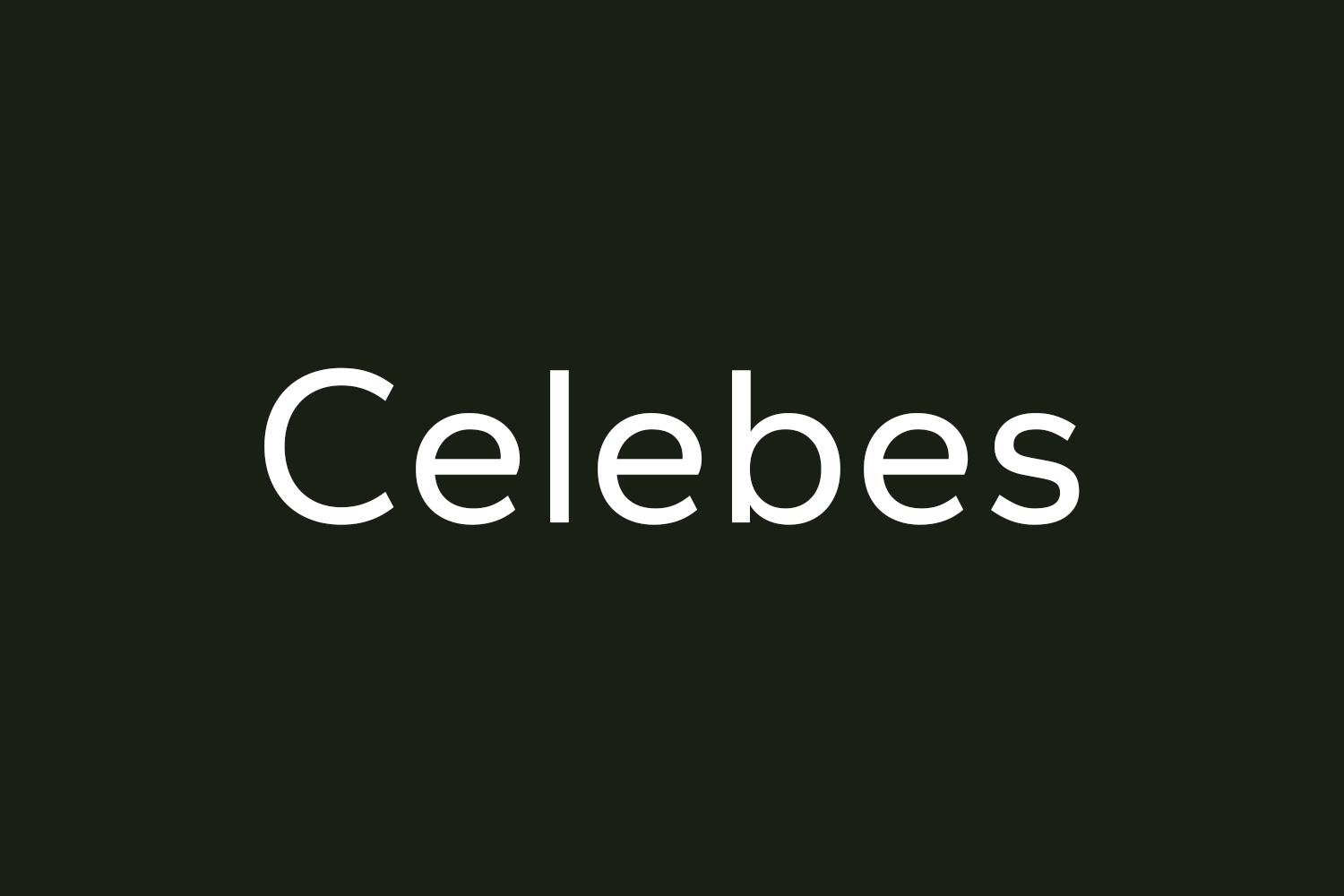
Celebes
Celebes Free Font Family, created by Anugrah Pasau for Lafontype, is a modern geometric sans serif font family suitable for various design projects. This font family offers a unique and versatile design that is perfect for both headlines and body text. With its minimalist and contemporary appearance, Celebes Free Font Family can be used for a variety of design projects, such as branding, logos, packaging, posters, social media posts, and much more. Get your hands on this beautiful font family and elevate your design game.